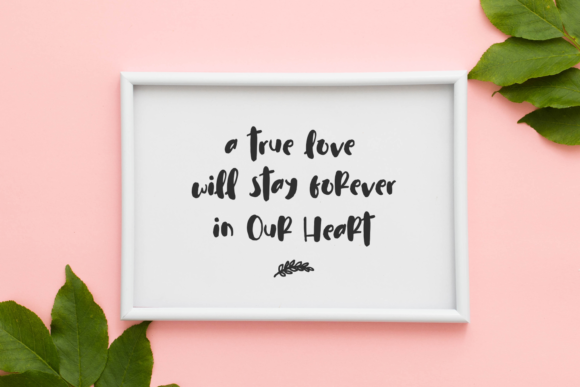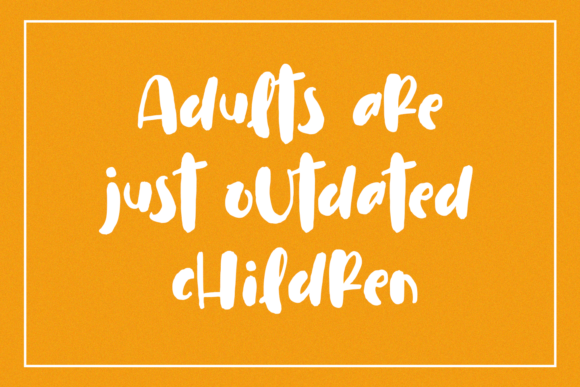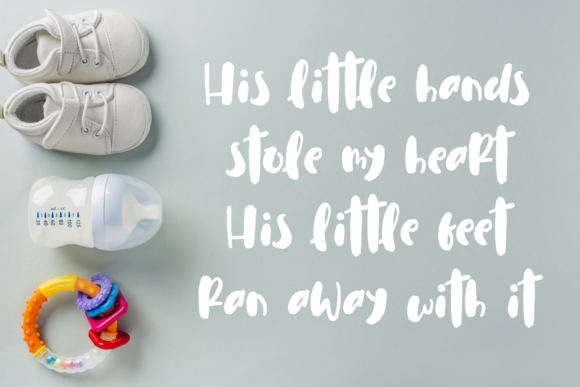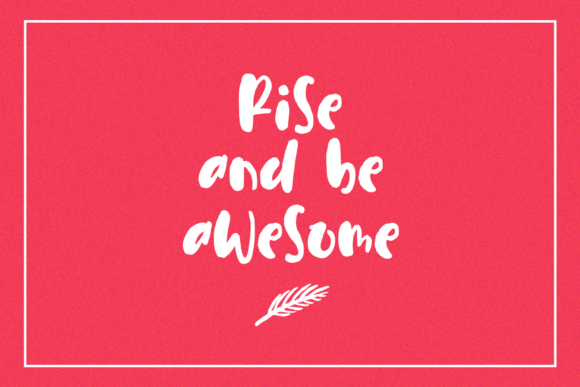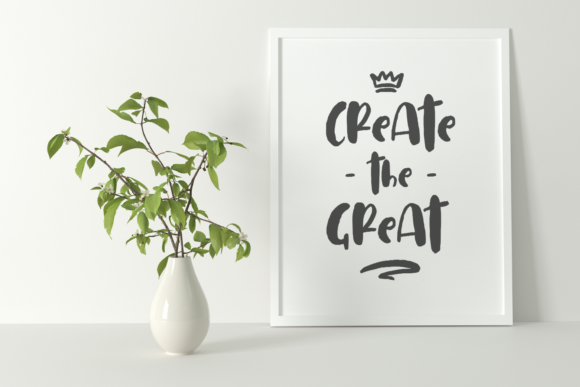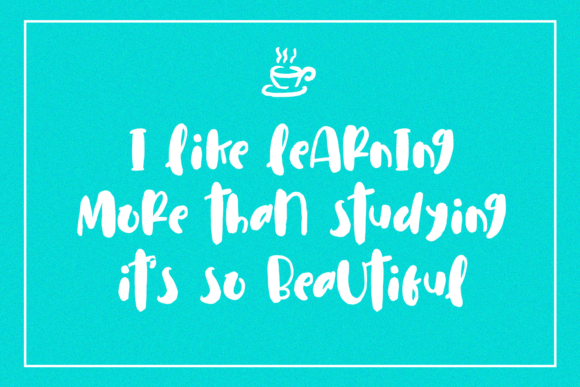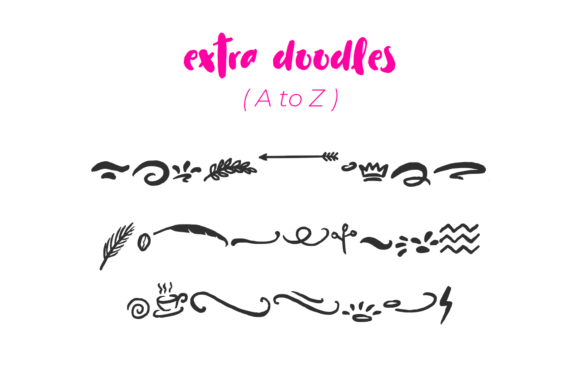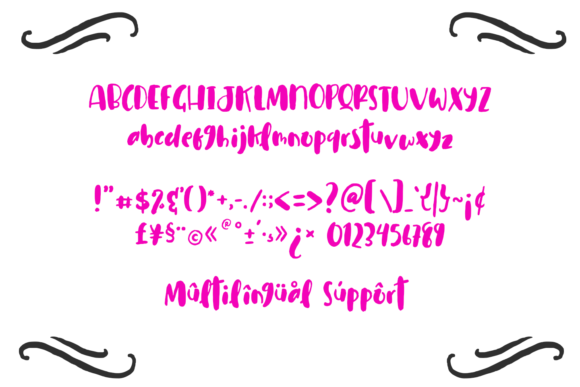
Cuties Magenta Font
About Cuties Magenta Font
Cuties Magenta is playful and cute but also authentic. This versatile calligraphy font has a wide range of applications ranging from crafting designs to headlines, and is guaranteed to add a charming touch to your next design.
This font is PUA encoded which means you can access all of the gorgeous glyphs and swashes with ease! It also features a fun set of doodles in the form of a dingbats font.